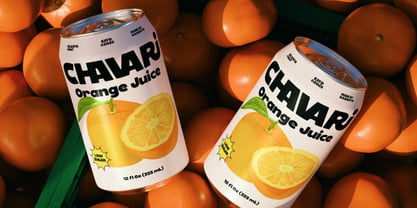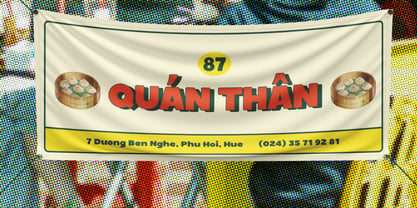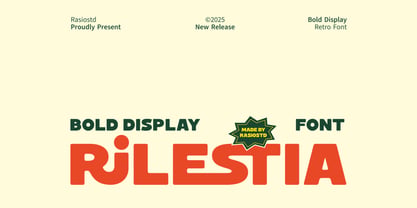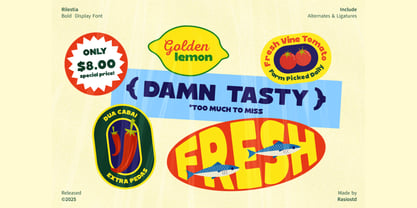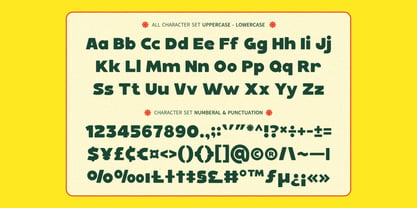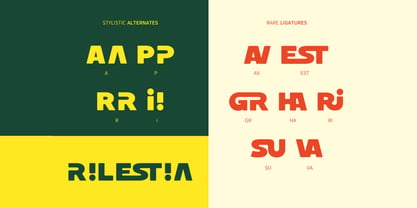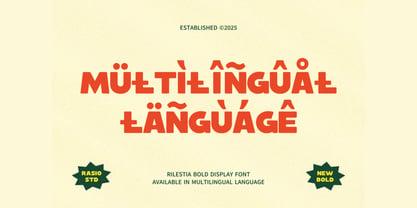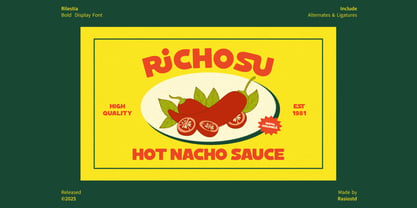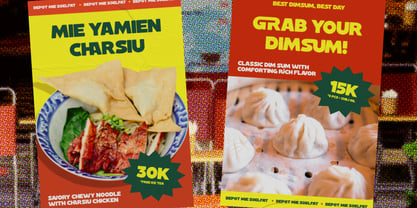
Rilestia
Die Schriftfamilie Rilestia wurde von Fajar Indra entworfen und von Rasio Studio veröffentlicht. Rilestia enthält 1 Stile. Mehr über diese Familie
Rilestia is a bold display sans serif font built with chunky proportions, rounded corners, and smooth geometric curves that create a strong yet friendly personality. The thick letterforms deliver high visual impact while maintaining clean readability, making every word feel confident and playful. Rilestia is a bold display sans serif font built with chunky proportions, rounded corners, and smooth geometric curves that create a strong yet friendly personality. The thick letterforms deliver high visual impact while maintaining clean readability, making every word feel confident and playful.